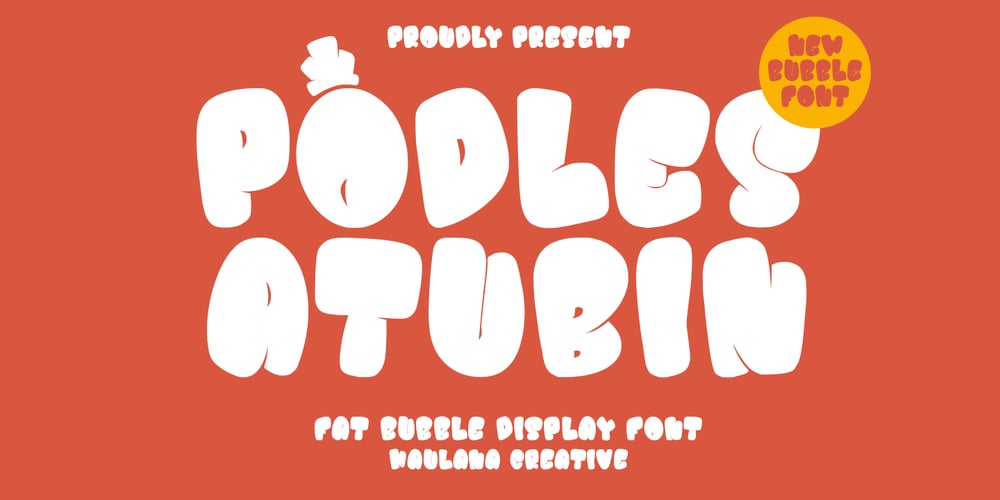
Podles Atubin Font Family was designed by Gilang Maulana and published by Maulana Creative. Podles Atubin contains 1 styles and family package options. Podles Atubin fat bubble display font. Heavy stroke, fun character with a bit of ligatures. To give you an extra creative work. Podles Atubin fat bubble display font support multilingual more than 100+ language. This font is good for logo design, Social media, Movie Titles, Books Titles, a short text even a long text letter and good for your secondary text font with script or serif. Make a stunning work with Podles Atubin fat bubble display font. Cheers, Maulana Creative